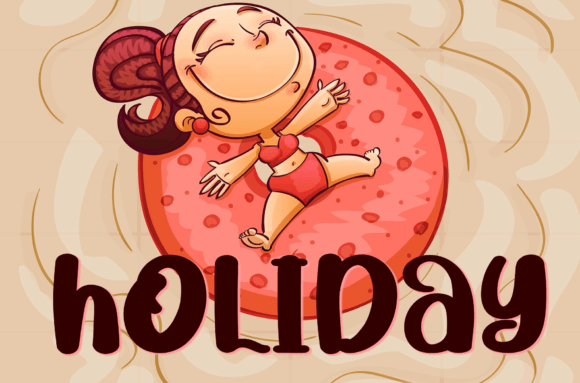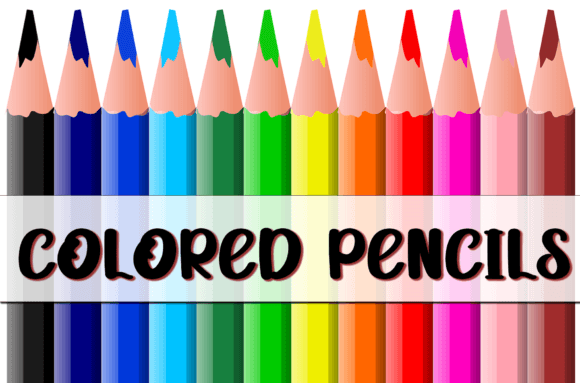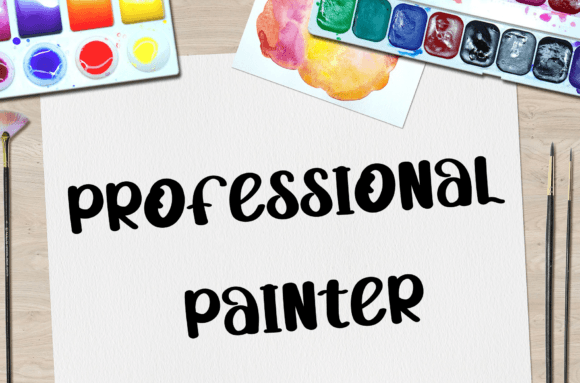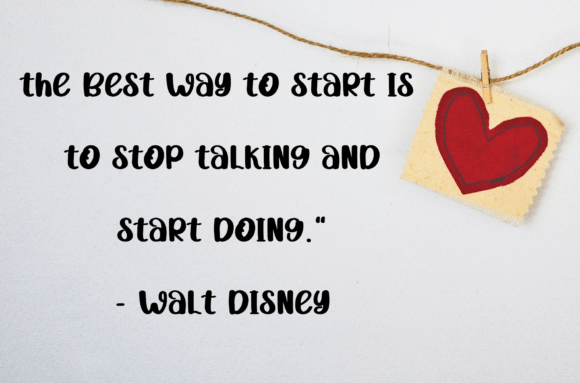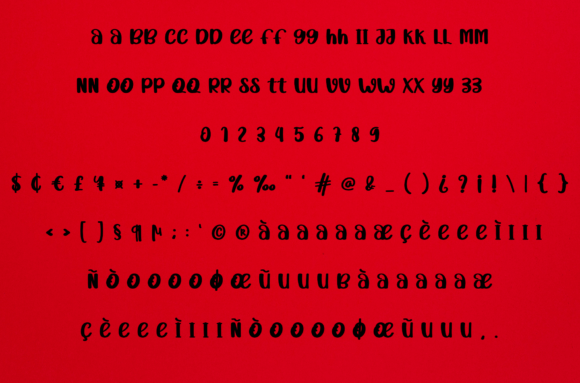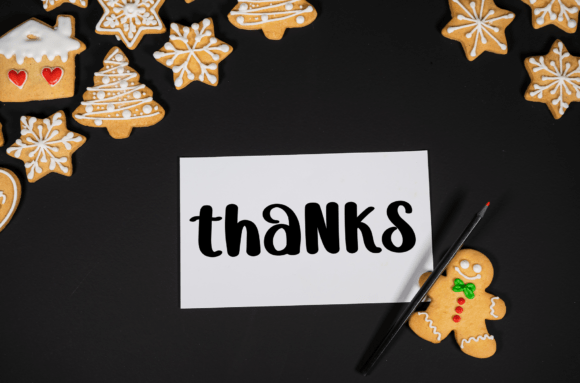
Bought Twenty Font
About Bought Twenty Font
Bought Twenty font is a warm and friendly handwritten typeface carefully crafted to become a beloved favorite in your font collection. Its inviting and natural style brings a handcrafted feel to your designs, making it ideal for a wide range of creative projects. Whether you’re designing wedding invitations, branding materials, social media graphics, or personal crafts, Bought Twenty font adds a lively and personal touch that brings your creations to life.
Warm and Inviting Handwriting Style
The charm of Bought Twenty font lies in its smooth, flowing strokes and approachable letterforms. This font strikes the perfect balance between readability and personality, ensuring your messages are clear and engaging. Its versatile design fits both modern and classic themes, giving your projects timeless appeal.
Versatile Uses of Bought Twenty Font
Bought Twenty font is great for a variety of creative applications, including:
• Wedding invitations and greeting cards
• Brand logos and business stationery
• Social media content and marketing materials
• Personal notes and creative lettering
• Flyers, posters, and printed designs
Thanks to its friendly and adaptable style, Bought Twenty font performs well across both print and digital platforms, maintaining its charm everywhere.
Adding Personality and Warmth to Your Designs
Using Bougt Twenty fon adds warmth and character to your projects. Its handwritten look fosters a genuine connection with your audience, making your messages feel heartfelt and sincere. This font enhances your creative work by offering a unique and inviting handwritten style that stands out.
Why Choose Bought Twenty Font?
• Friendly and readable handwritten style
• Smooth, clear letterforms
• Suitable for many creative projects
• Adds warmth and personal charm
• Ideal for both print and digital use
Final Thoughts on Bought Twenty Font
In summary, Bougt Twenty fon is a friendly and charming handwritten typeface perfect for wedding invitations, branding, social media, and more. Its warm and lively style makes it a valuable asset for designers who want to add personality and charm to their work.